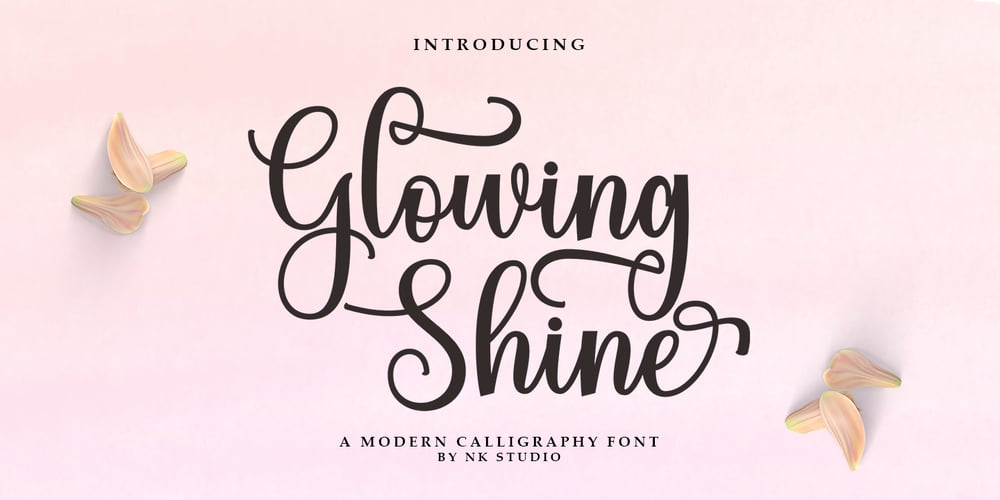
Glowing Shine
Glowing Shine font
Glowing Shine Font Family was designed by Nurul Kamal and published by Nk Studio. Glowing Shine contains 1 styles and family package options. introduceGlowing Shine with beautiful handwriting style. Equipped with 300+ glyphs. Glowing Shine is perfect for branding projects, home appliance design, product packaging, use in business cards, invitation cards, etc. Just like a stylish text overlay to a background image or anything else that needs a touch of elegance.To enable the OpenType Stylistic alternative, you need a program that supports OpenType features such as Adobe Illustrator CS, Adobe Indesign & CorelDraw X6-X7, Microsoft Word 2010 or a later version.There are additional ways to swash, using the Character Map (Windows), Nexus Font (Windows), Font Book (Mac) or a software program like PopChar (for Windows and Mac).How to access all alternative characters, using the Windows Character Map with Photoshop:https://www.youtube.com/watch?v=Go9vacoYmBwHow to access all alternative characters using Adobe Illustrator:http://youtu.be/iptSFA7feQ0How to use the font style set in Microsoft Word 2010 or later versions:https://youtu.be/x1A_ilsBsGsThanks for checking! I really hope you enjoy it.RegardsNk Studio